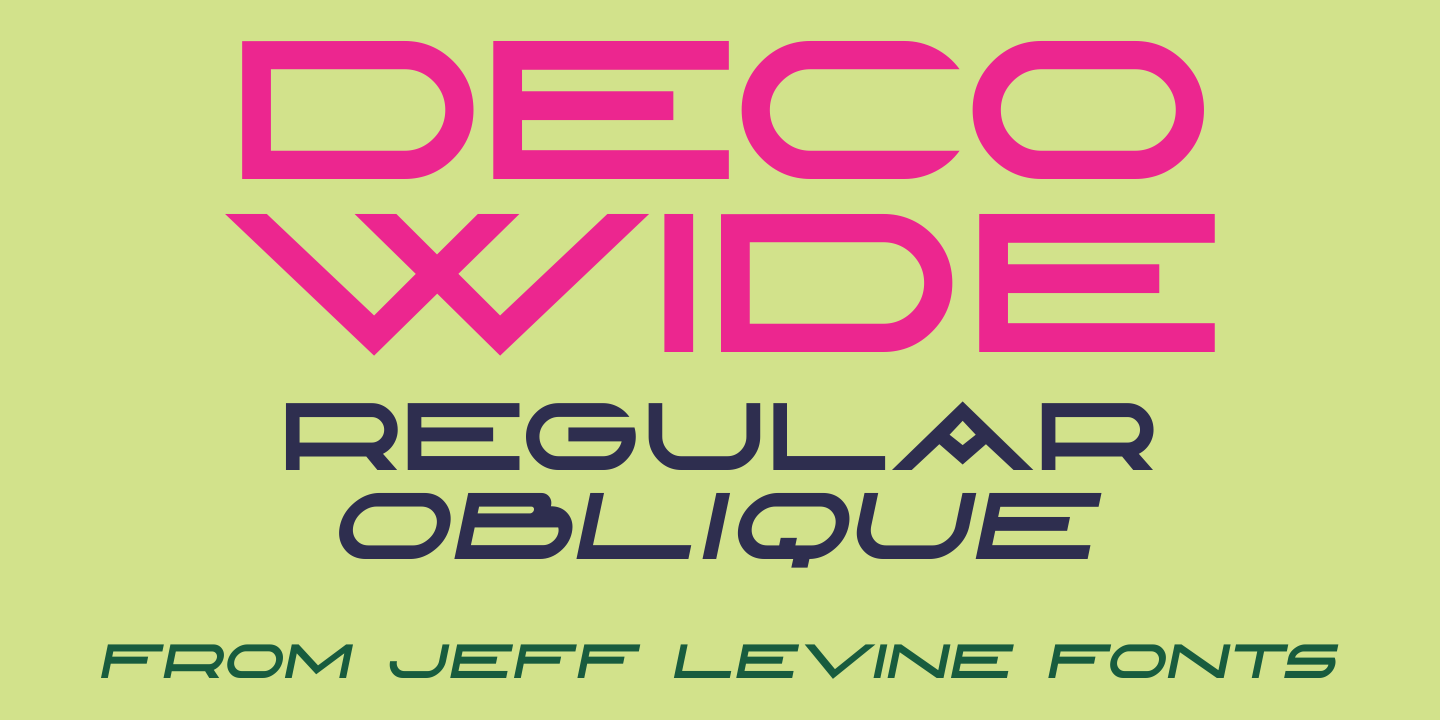
Deco Wide JNL Font Free Download is a bold and glamorous display font inspired by the Art Deco era, perfect for making a striking statement in your designs. Please note: you must purchase a license for commercial use — this font is available as a free download for testing and personal projects.
This font is ideal for luxury branding, event posters, fashion magazines, movie titles, signage, and packaging where vintage elegance meets modern flair. If you want your project to radiate timeless sophistication, Deco Wide JNL Font Free Download is the font to choose.
What makes this font exciting is its wide, geometric letterforms combined with sharp lines and decorative elements reminiscent of 1920s glamour. It’s both retro and fresh, giving your designs a unique, eye-catching style that demands attention.
The Deco Wide JNL font family includes Regular and Bold styles, providing versatility for headlines and display text that need to captivate and impress.
Whether you're designing a high-end event invitation or a bold brand identity, Deco Wide JNL Font Free Download brings an iconic, vintage charm with a modern twist. Download it today, test its elegance, and make your typography unforgettable.